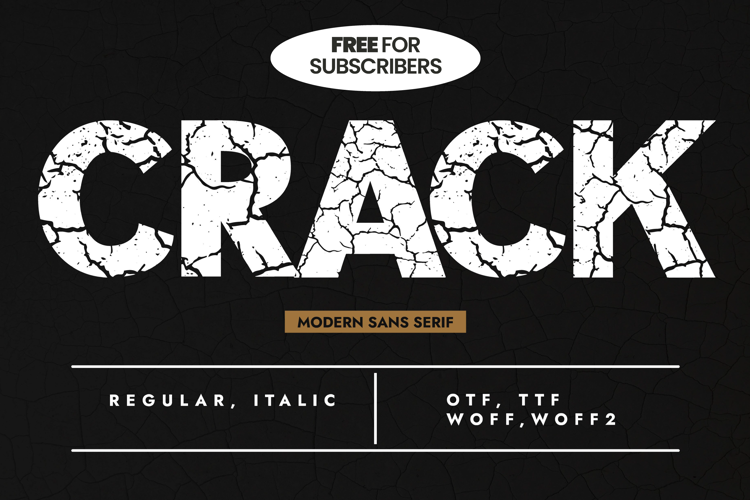
CRACK Font
ITALIC Regular Style
๐จ Font Name: CRACK by Minimalist Art Studio
๐จ Font Description: CRACK is a modern sans serif with a fractured texture and multilingual supportโperfect for cinematic titles, dystopian themes, and high-impact visuals.